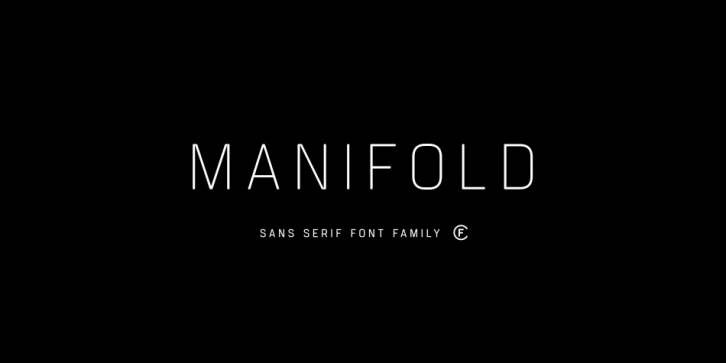
Manifold CF is a sans serif font family. This typeface has twelve styles and was published by Connary Fagen Type Design.
A utilitarian typeface inspired by the cold precision of a computer terminal, softened by modern design cues. Strong, unified, articulate. Manifold’s unified letterforms and x-height excel in any setting. Track it out to lend a sophisticated look to titles and headlines.